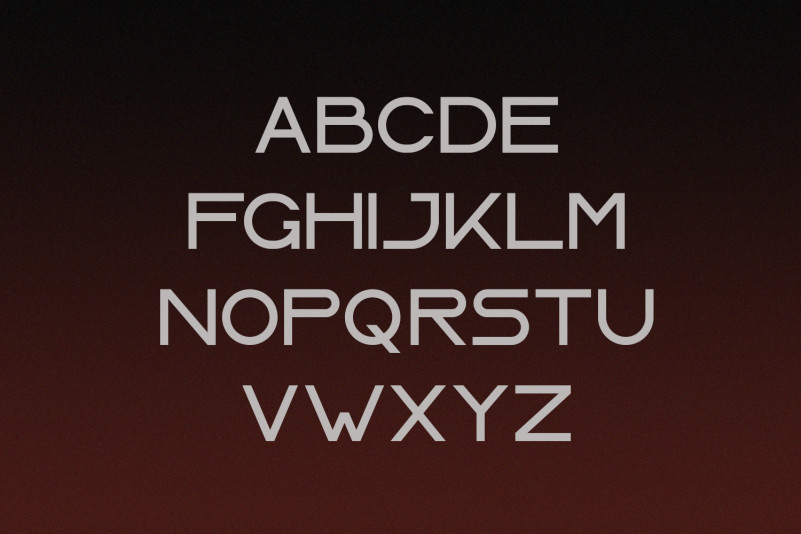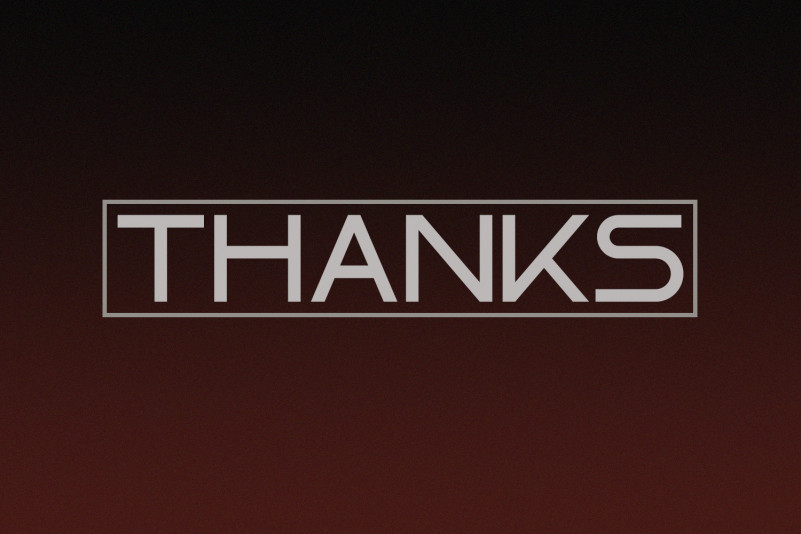
Laser Display Font
Laser fonts was specially designed with san serif type gives the impression of being clean,modern and extremely ellegant. This font would be perfectly used as namecard, poster, logo, magazine, cover, banner, tshirt and headers, or even large-scale artwork. The Laser has 3 variants namely: Regular, Outliner and Stamp style.